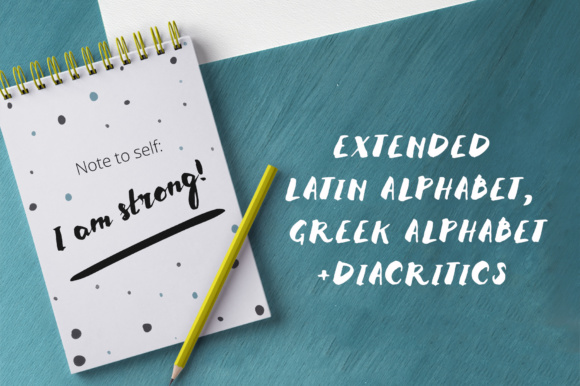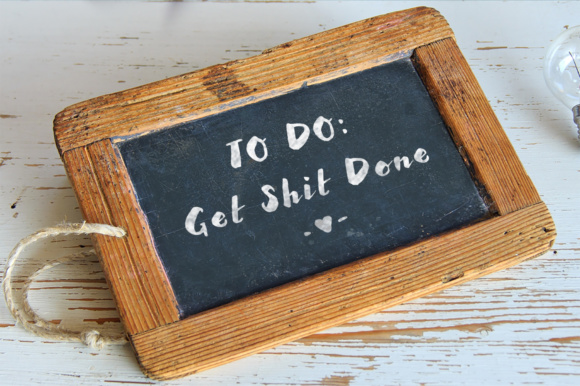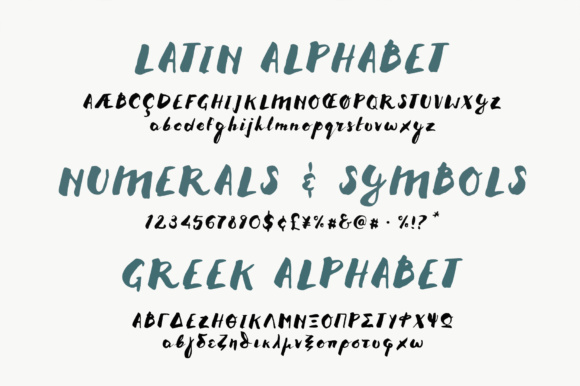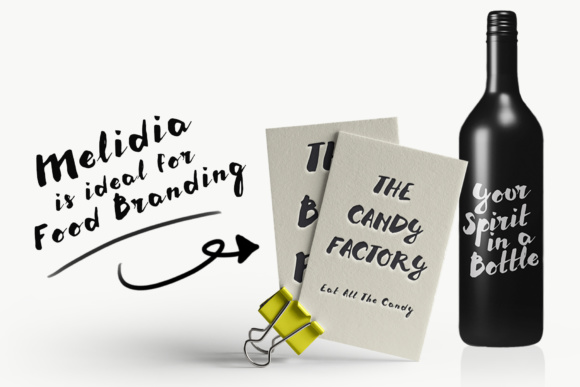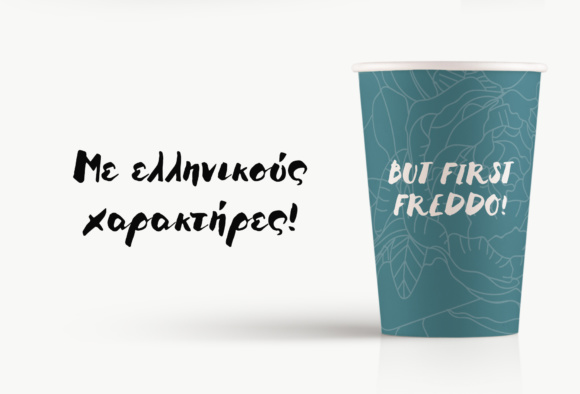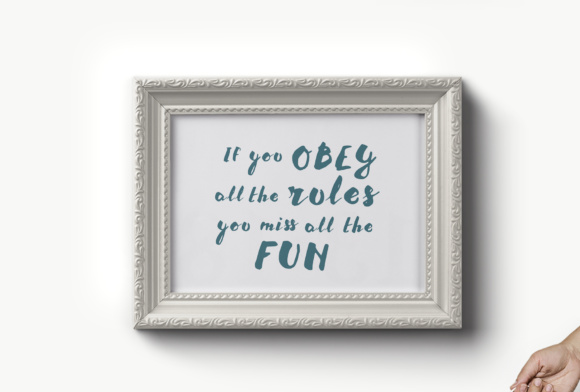
Introduction to Melidia Font
As a designer, you know that the perfect font can make all the difference in a creative project. You’re scrolling through your favorite design resources, searching for that one font that will elevate your latest social media post or restaurant menu design. And then, you stumble upon it – a beautiful, modern typeface that catches your eye. This is where the Melidia Font comes in, a bold, hand-brushed font that’s perfect for designers looking for a high-quality design resource.
With its transparent background and versatile style, the Melidia Font is a valuable asset for any designer. Whether you’re working on a food branding project or creating packaging for a new product, this font is sure to impress. And the best part? It’s available for free download, making it an accessible design resource for designers of all levels.
So why settle for a generic font when you can have a unique and stylish alternative like the Melidia Font? Whether you’re a seasoned designer or just starting out, this font is sure to add a touch of creativity and sophistication to your next project.
Key Features of Melidia Font
- High-quality design resource suitable for creative projects, offering a unique and elegant aesthetic.
- Features a transparent background, allowing for seamless integration into your design without visual distractions.
- Available in a range of sizes, from 12 to 72 points, to accommodate various design needs and applications.
- Designed with precision, ensuring crisp and clear rendering at resolutions up to 300 DPI.
- Perfect for use in logos, branding, and other creative projects where a sophisticated and refined look is desired.
- Includes a comprehensive character set, making it suitable for use in a wide range of languages and applications.
Honest Review: Melidia Font
What works well: ✨ The Melidia Font has a beautiful, elegant design that lends itself perfectly to a variety of creative projects. The transparent background makes it easy to layer and combine with other design elements, and the font is incredibly versatile.
Some notable features include:
- Extensive character set, including Latin, Greek, and Cyrillic scripts
- High-resolution vector format for crisp, clear output
Limitations: ⚠️ While the Melidia Font is generally a great choice, I did find it to be a bit limited in terms of bold and italic styles. Additionally, some users may find the font to be a bit too elegant for certain projects.
Melidia Font is a high-quality design resource perfect for creative projects that require a unique touch. This versatile font can be used in a variety of applications, including digital and print media.
Experiment with different font sizes, colors, and styles to create unique and eye-catching designs. Use Melidia Font in combination with other design elements, such as images and shapes, to add depth and interest to your projects.
Melidia Font is ideal for use in creative projects, such as logos, brochures, and business cards. It is also a great choice for use in digital media, such as websites and social media graphics.